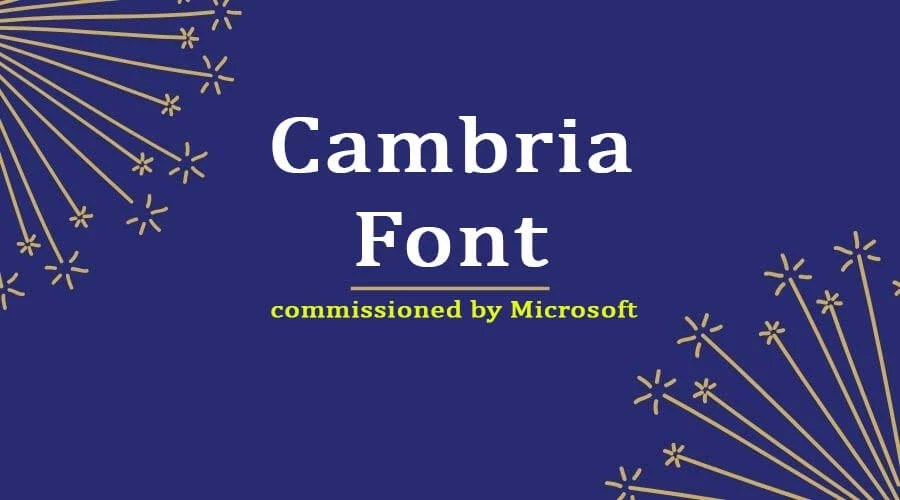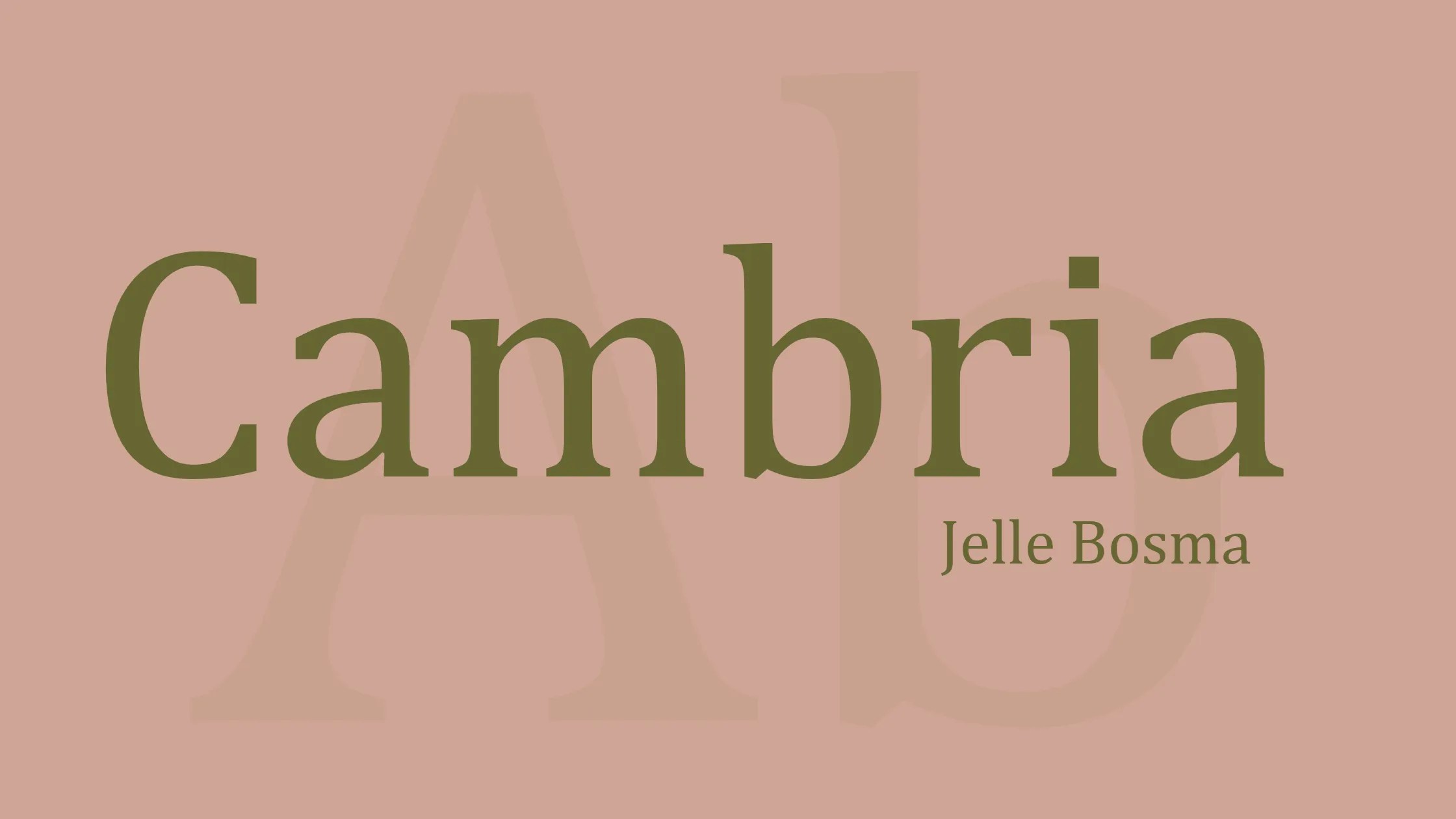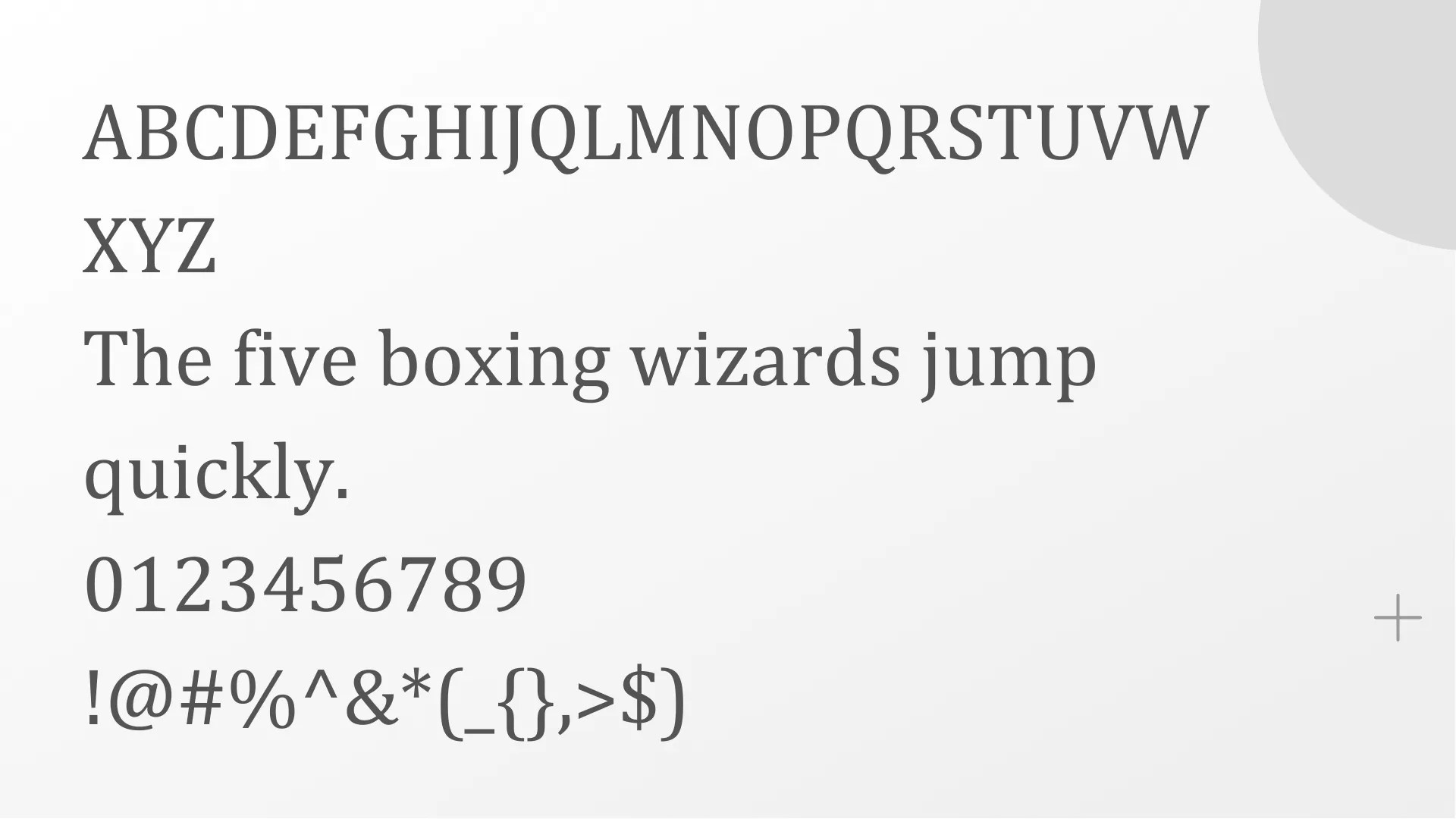
What Is Cambria Font . It has very even spacing and proportions. Cambria is a transitional serif typeface commissioned by microsoft and distributed with windows and office. It was designed by dutch. If you're looking for a clean, versatile font similar to cambria, here you'll find the cambria font alternative for you! It was designed by dutch typeface designer jelle bosma in 2004, with input from steve matteson and robin nicholas. What font is similar to cambria? Cambria is a serif typeface which was developed for microsoft and is included with all microsoft windows and microsoft office. Cambria is a transitional serif typeface commissioned by microsoft and distributed with windows and office. This font features a playful and whimsical style with rounded, flowing.
What font is similar to cambria? It has very even spacing and proportions. Cambria is a transitional serif typeface commissioned by microsoft and distributed with windows and office. Cambria is a transitional serif typeface commissioned by microsoft and distributed with windows and office. It was designed by dutch typeface designer jelle bosma in 2004, with input from steve matteson and robin nicholas. It was designed by dutch. If you're looking for a clean, versatile font similar to cambria, here you'll find the cambria font alternative for you! Cambria is a serif typeface which was developed for microsoft and is included with all microsoft windows and microsoft office. This font features a playful and whimsical style with rounded, flowing.
What Is Cambria Font Cambria is a transitional serif typeface commissioned by microsoft and distributed with windows and office. Cambria is a transitional serif typeface commissioned by microsoft and distributed with windows and office. This font features a playful and whimsical style with rounded, flowing. It was designed by dutch typeface designer jelle bosma in 2004, with input from steve matteson and robin nicholas. Cambria is a transitional serif typeface commissioned by microsoft and distributed with windows and office. It has very even spacing and proportions. It was designed by dutch. Cambria is a serif typeface which was developed for microsoft and is included with all microsoft windows and microsoft office. What font is similar to cambria? If you're looking for a clean, versatile font similar to cambria, here you'll find the cambria font alternative for you!
Cambria Font Download Free Fonts Lab What Is Cambria Font It was designed by dutch typeface designer jelle bosma in 2004, with input from steve matteson and robin nicholas. It has very even spacing and proportions. This font features a playful and whimsical style with rounded, flowing. Cambria is a serif typeface which was developed for microsoft and is included with all microsoft windows and microsoft office. Cambria is a. What Is Cambria Font.
Cambria Font Free Download What Is Cambria Font Cambria is a transitional serif typeface commissioned by microsoft and distributed with windows and office. This font features a playful and whimsical style with rounded, flowing. Cambria is a serif typeface which was developed for microsoft and is included with all microsoft windows and microsoft office. It was designed by dutch typeface designer jelle bosma in 2004, with input from. What Is Cambria Font.
Cambria Font Free Download What Is Cambria Font It has very even spacing and proportions. It was designed by dutch typeface designer jelle bosma in 2004, with input from steve matteson and robin nicholas. This font features a playful and whimsical style with rounded, flowing. What font is similar to cambria? If you're looking for a clean, versatile font similar to cambria, here you'll find the cambria font. What Is Cambria Font.
Cambria Font Download Free Fonts Lab What Is Cambria Font This font features a playful and whimsical style with rounded, flowing. It has very even spacing and proportions. Cambria is a serif typeface which was developed for microsoft and is included with all microsoft windows and microsoft office. It was designed by dutch typeface designer jelle bosma in 2004, with input from steve matteson and robin nicholas. If you're looking. What Is Cambria Font.
Cambria Font Free Fonts Vault What Is Cambria Font What font is similar to cambria? Cambria is a serif typeface which was developed for microsoft and is included with all microsoft windows and microsoft office. If you're looking for a clean, versatile font similar to cambria, here you'll find the cambria font alternative for you! Cambria is a transitional serif typeface commissioned by microsoft and distributed with windows and. What Is Cambria Font.
Cambria Font Text Effect and Logo Design Font What Is Cambria Font Cambria is a serif typeface which was developed for microsoft and is included with all microsoft windows and microsoft office. This font features a playful and whimsical style with rounded, flowing. Cambria is a transitional serif typeface commissioned by microsoft and distributed with windows and office. It was designed by dutch typeface designer jelle bosma in 2004, with input from. What Is Cambria Font.
Cambria W01 Bold 1.1 Fonts Free Download What Is Cambria Font What font is similar to cambria? Cambria is a transitional serif typeface commissioned by microsoft and distributed with windows and office. If you're looking for a clean, versatile font similar to cambria, here you'll find the cambria font alternative for you! It was designed by dutch typeface designer jelle bosma in 2004, with input from steve matteson and robin nicholas.. What Is Cambria Font.
Cambria Font Download Free Font What Is Cambria Font It was designed by dutch. It has very even spacing and proportions. This font features a playful and whimsical style with rounded, flowing. It was designed by dutch typeface designer jelle bosma in 2004, with input from steve matteson and robin nicholas. If you're looking for a clean, versatile font similar to cambria, here you'll find the cambria font alternative. What Is Cambria Font.
Font Alphabet Styles Cambria What Is Cambria Font Cambria is a transitional serif typeface commissioned by microsoft and distributed with windows and office. It has very even spacing and proportions. This font features a playful and whimsical style with rounded, flowing. If you're looking for a clean, versatile font similar to cambria, here you'll find the cambria font alternative for you! It was designed by dutch typeface designer. What Is Cambria Font.